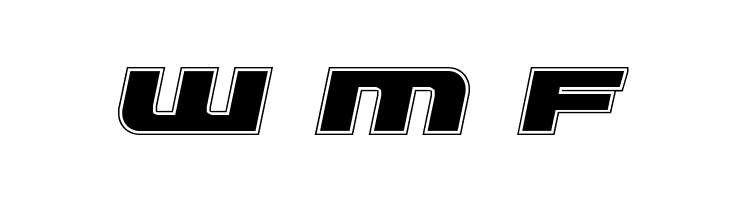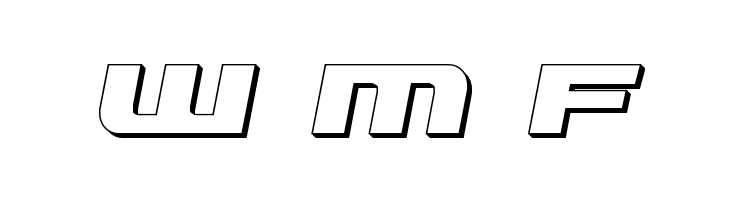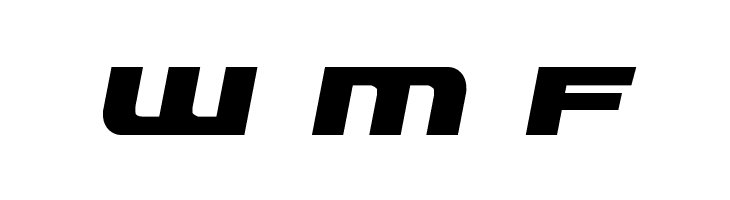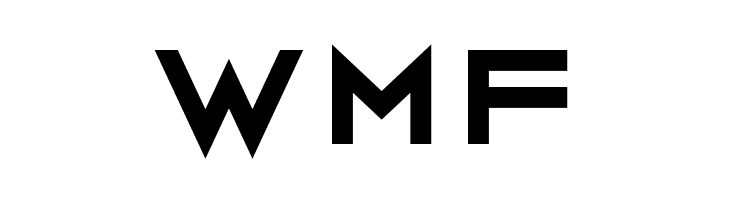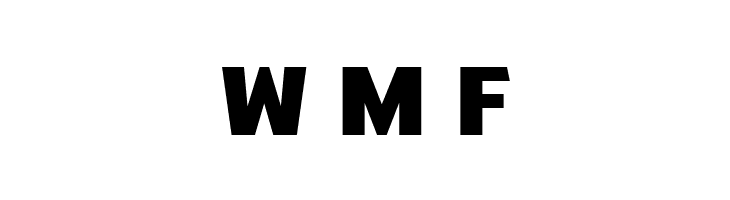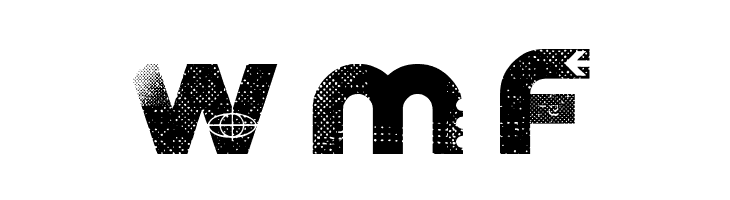
A futuristic, abstract font with angular, geometric shapes.
A bold, playful, 3D-effect font with a decorative style.
A playful, handwritten font with a whimsical and casual style.
A modern, geometric font with an italic slant and hexagonal pattern.
A bold, playful font with rounded edges and a graffiti-inspired style.
A geometric font with hexagonal frames and a futuristic, industrial style.
A bold, modern, and condensed font with clean lines and geometric structure.
A playful, hand-drawn outlined font with a whimsical and casual style.
A bold, futuristic font with geometric and modern design elements.
A modern, geometric font with thin lines and a minimalist design.
A modern, geometric font with thin, straight lines and a minimalist style.
A modern, geometric font with clean lines and minimalist design.
A playful, bold font with a hand-drawn, casual style.
A playful, hand-drawn font with bold, rounded characters.
A bold, hand-drawn font with a rustic and organic feel.
A playful, hand-drawn font with a 3D sketch effect.
A bold, playful script font with rounded edges and a whimsical style.
A bold, dynamic script font with a playful and energetic style.
A bold, geometric font with distressed textures and an industrial aesthetic.
A bold, geometric font with a modern and playful style.
A bold, geometric font with thick strokes and a modern design.
A bold, modern italic font with a dynamic slant and strong presence.
A bold, hollow, geometric font with a three-dimensional outline effect.
A bold, geometric font with strong, angular shapes and consistent stroke widths.
A dynamic, hand-drawn font with bold, expressive strokes.
A bold, angular font with a modern, edgy style.
A bold, playful font with a hand-drawn, organic style.
A bold, futuristic font with sharp angles and geometric shapes.
A bold, dripping font with a haunting, gothic style.
A bold, impactful font with thick strokes and strong presence.
A bold, rounded font with a strong, modern presence.
A bold, futuristic font with angular edges and a dynamic slant.
A bold, 3D outlined font with a futuristic and dynamic style.